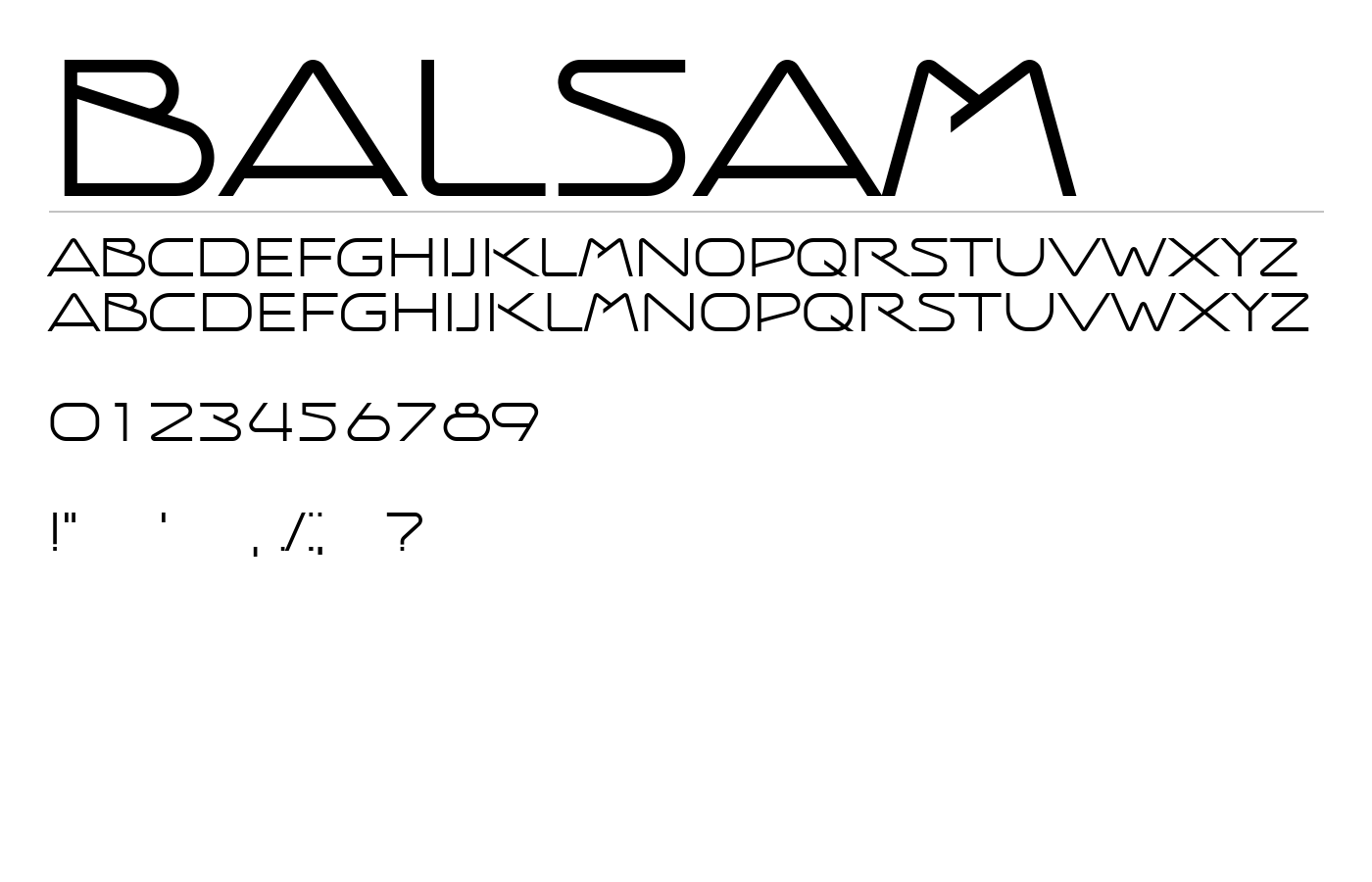
Balsam is a sleek, modern sans serif font characterized by its thin, geometric lines and a clean, airy structure that creates an elegant, futuristic feel. Its unique letterforms, such as the stylized Q and the angular M, enhance its distinctive and sophisticated personality, making it ideal for contemporary branding, logos, and editorial design where a minimalist yet eye-catching look is desired. This font works best in large sizes for headlines and display purposes, highlighting clarity and style with a refined, tech-inspired aesthetic.
Balsam Font
About Balsam Font